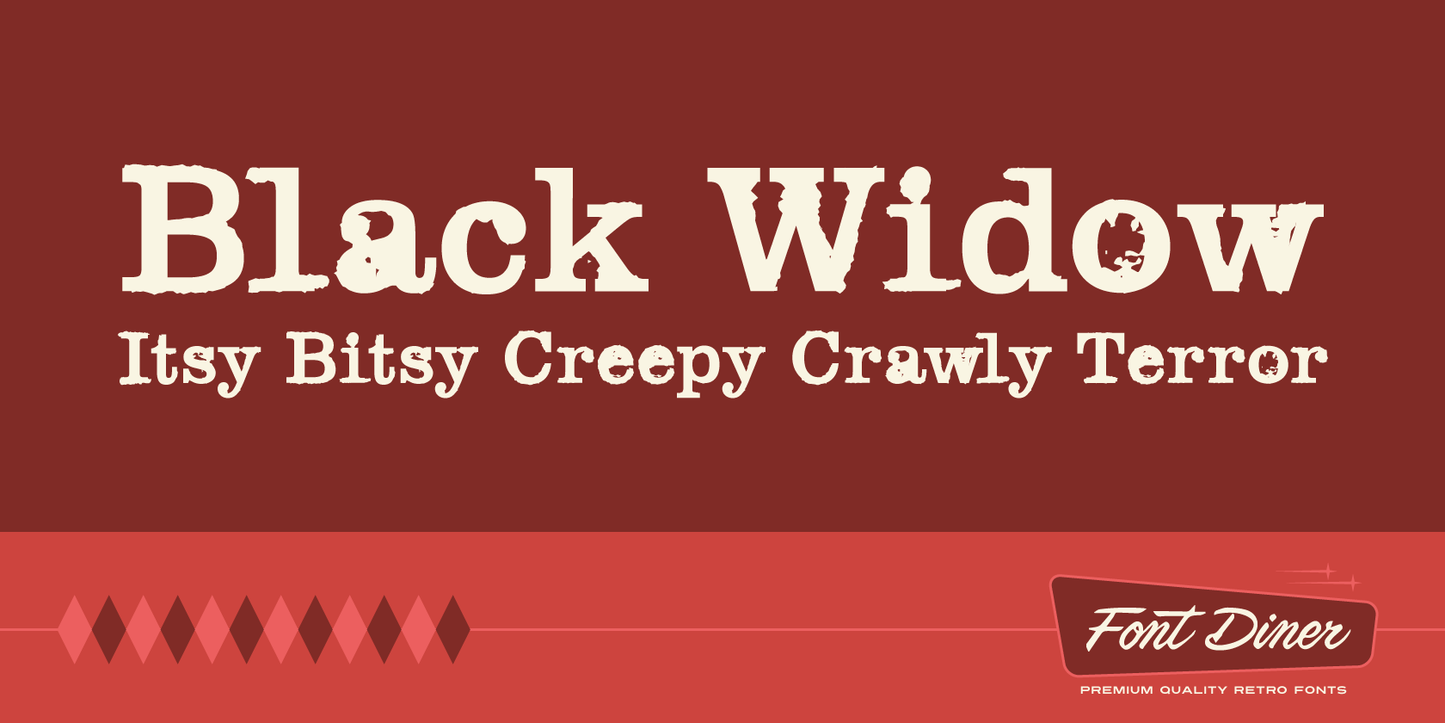
If you’re ever out walking late at night and you feel a tickle on your neck, it just may be the piercing fangs of a giant Black Widow spider! Widely known for its deadly bite and the telltale red hourglass on its back reminding you how much time you have left to live before you are overcome with its venomous poison. . . It just may be . . .
Black Widow Font
Black Widow